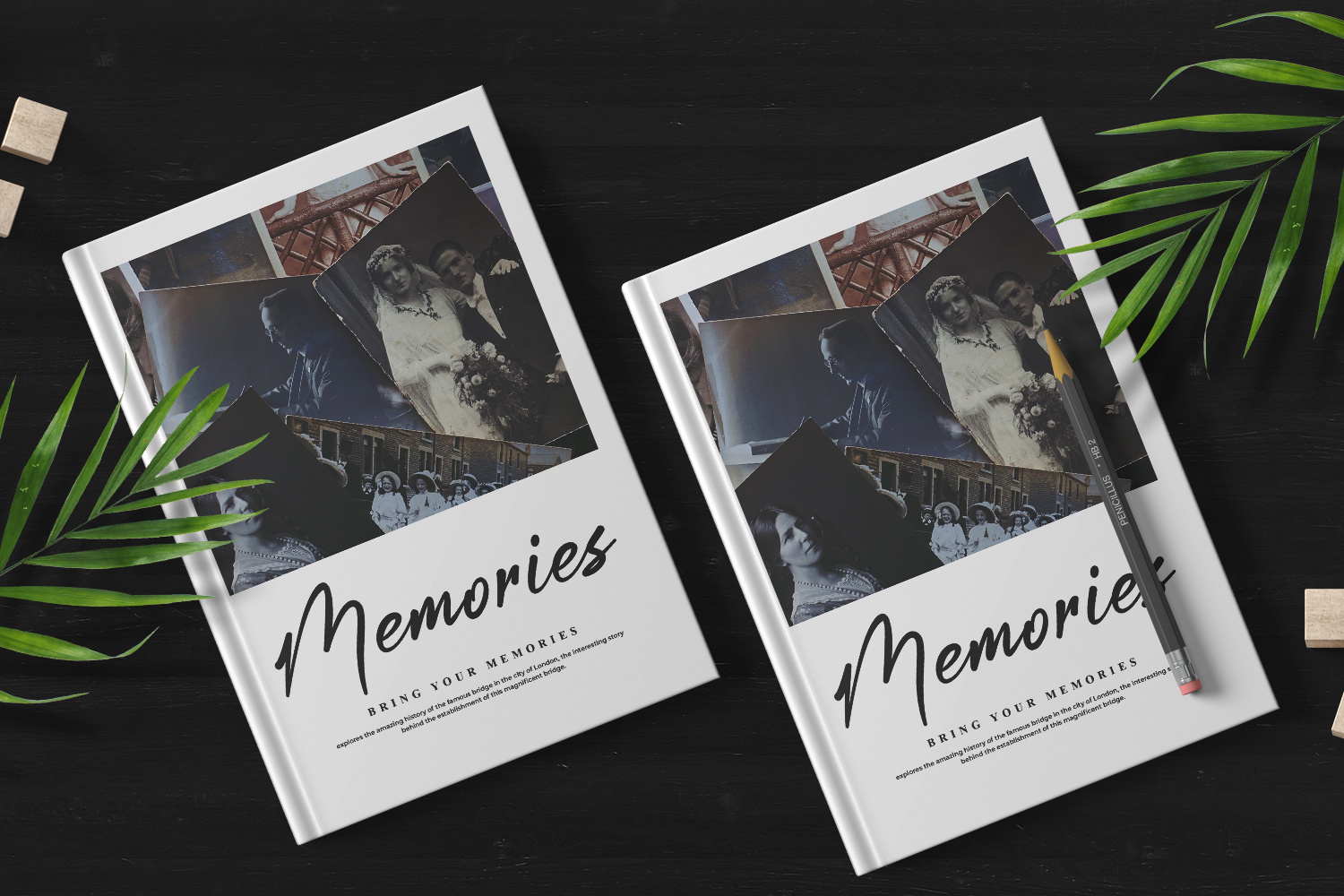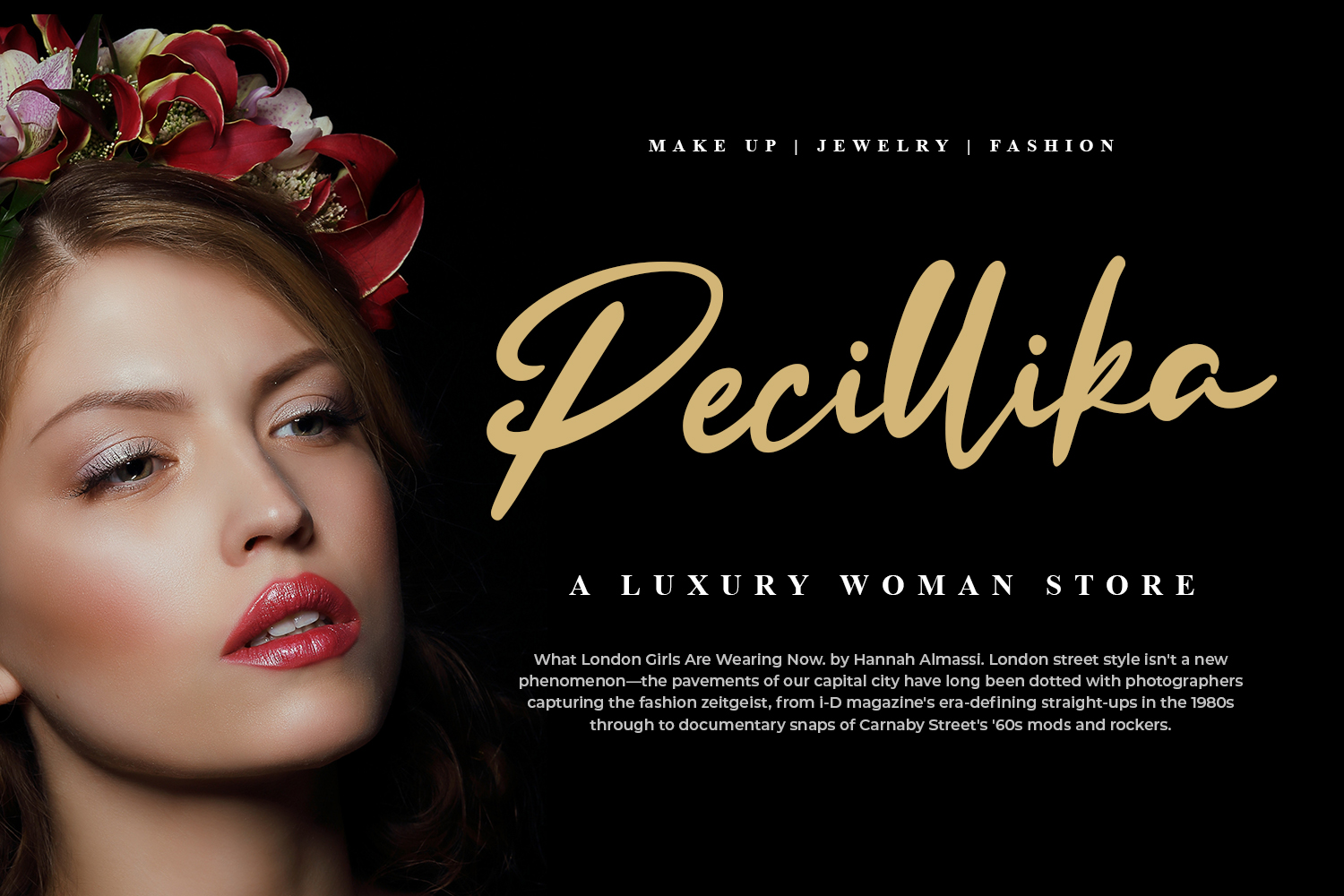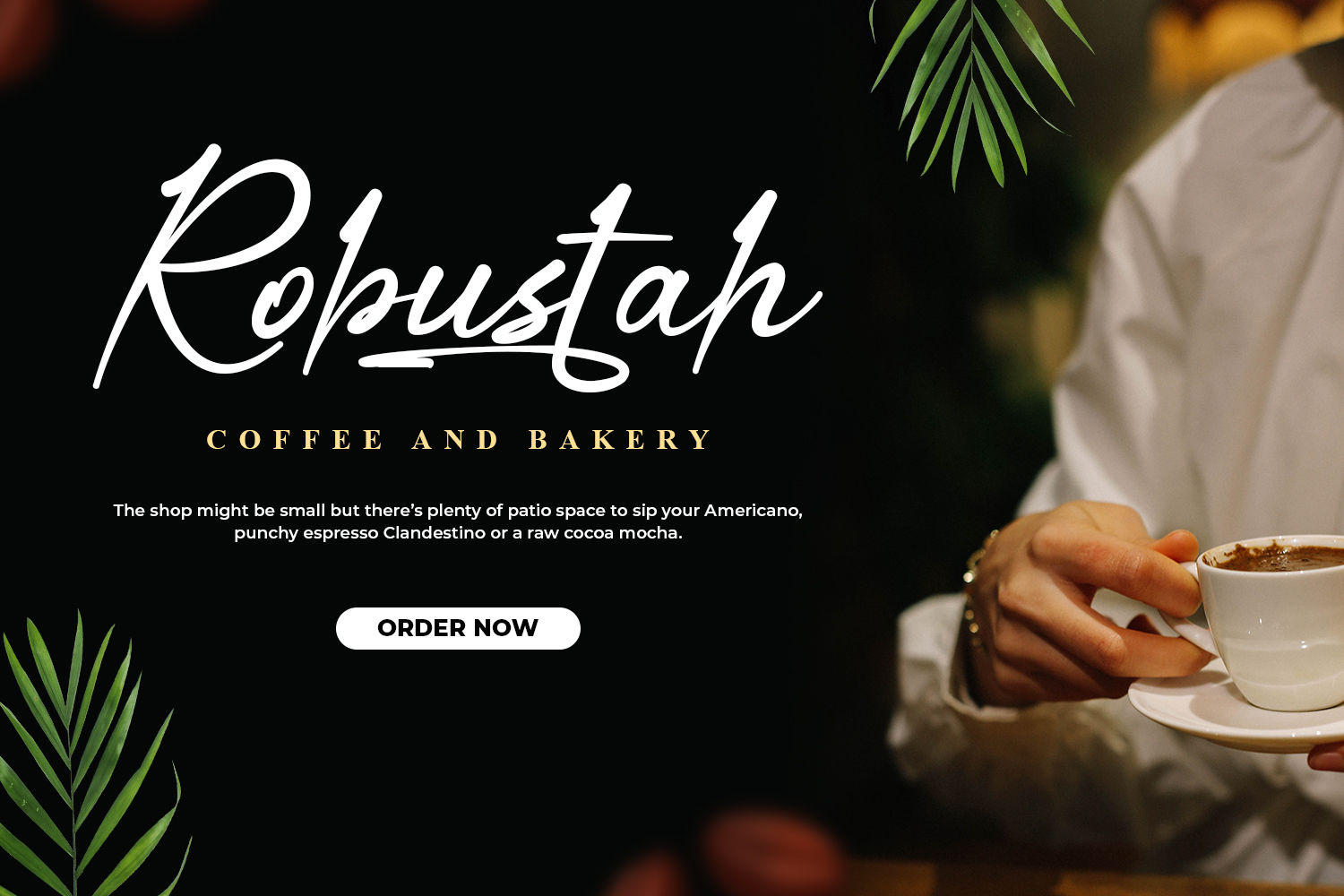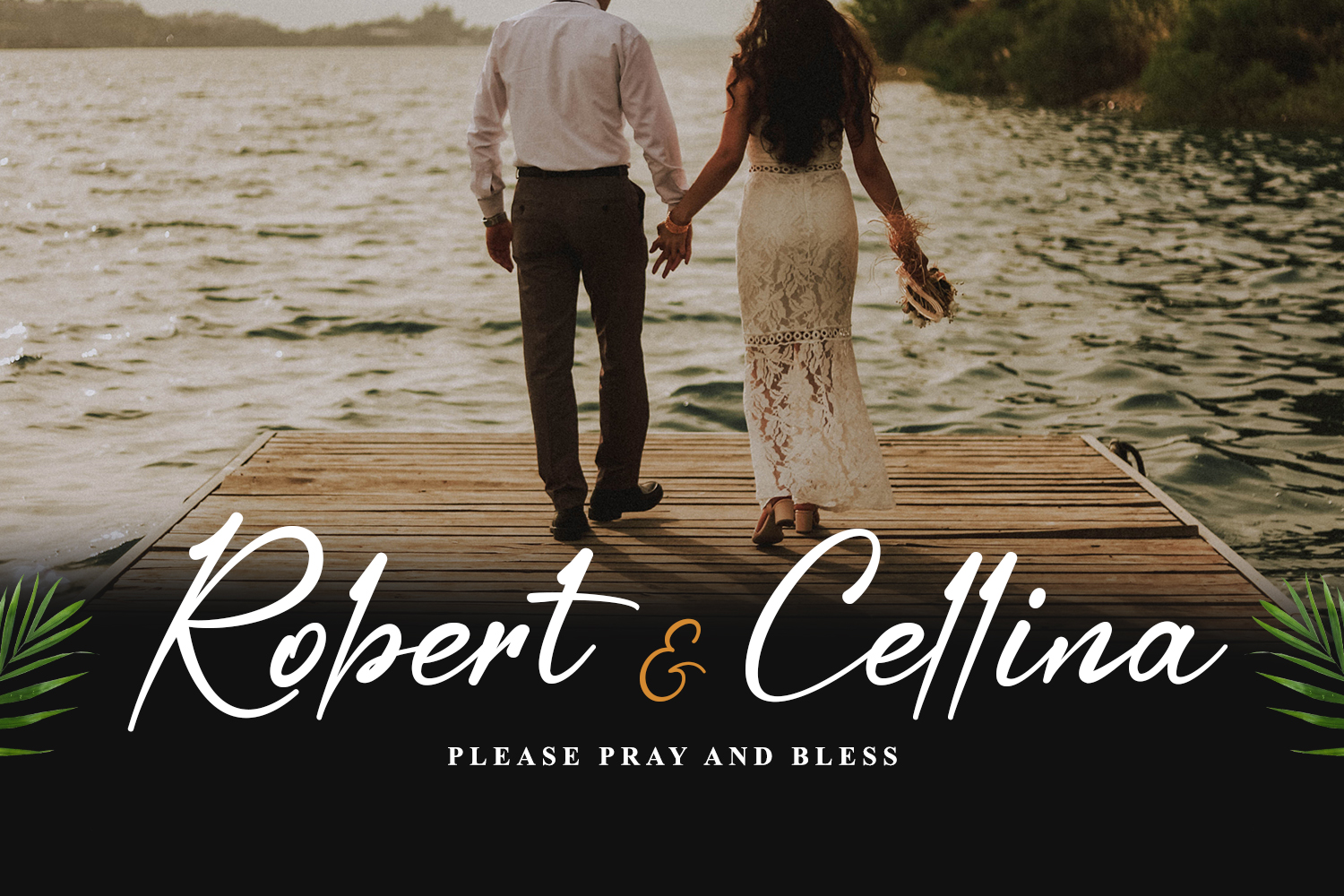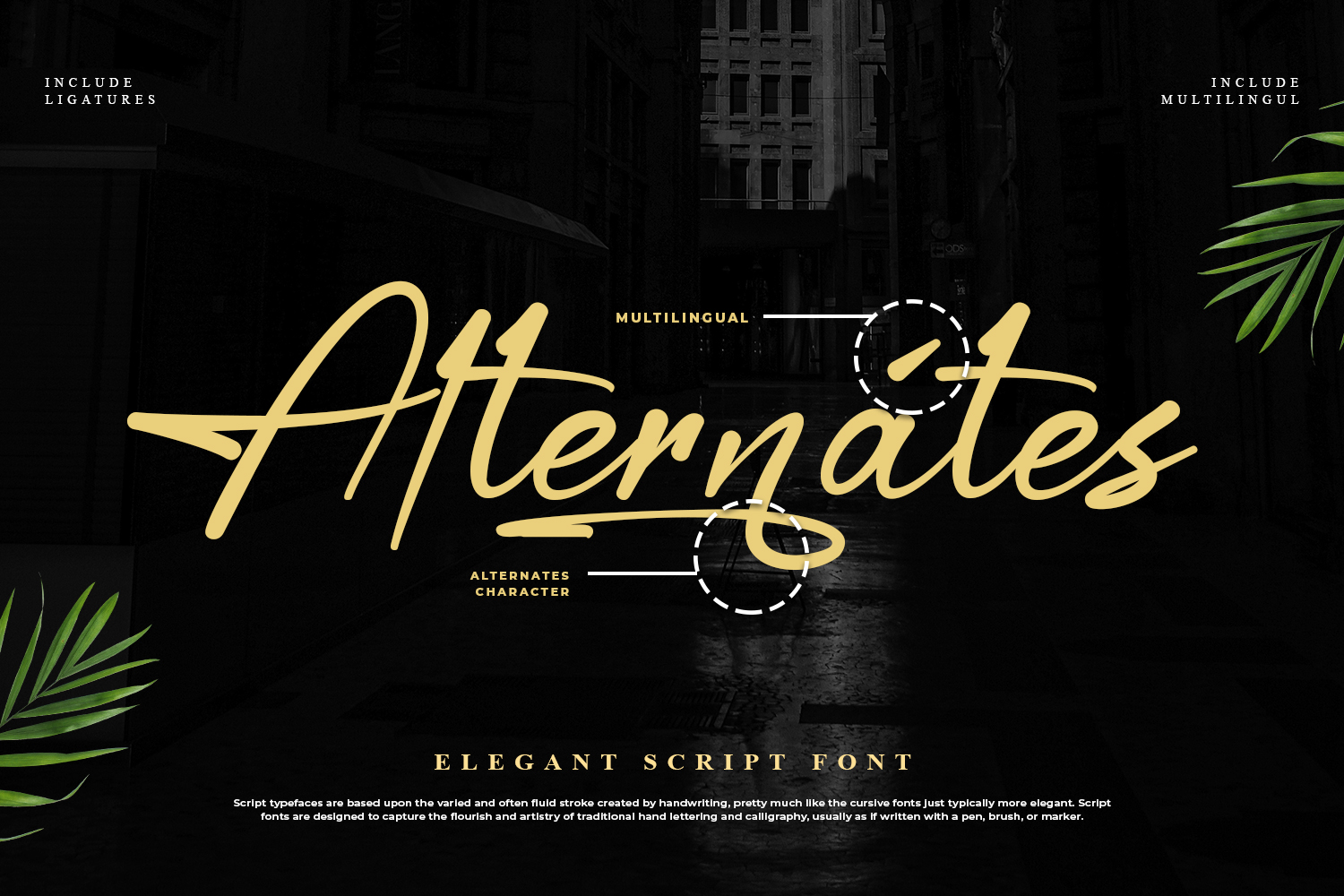
Elevate your designs with the sophisticated charm of Bogani Gottan Elegant Script Font. This exquisite typeface features delicate curves and stylish flourishes, embodying the grace of classic calligraphy. Perfect for wedding invitations, luxury branding, and high-end marketing materials, Bogani Gottan adds a touch of elegance and refinement to any project. Its unique character and flowing lines make your text not just readable but a stunning focal point. Download Bogani Gottan today and transform your designs into works of art that leave a lasting impression!